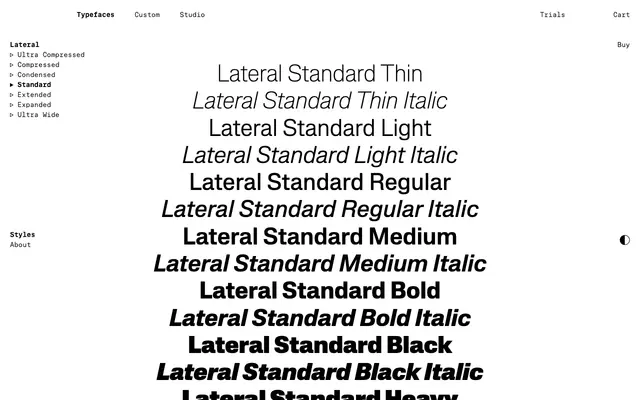
Lateral Standard
Lateral Standard specimen from Schick Toikka
The central width of Lateral: a workhorse neo-grotesque in seven weights with italics, where the family's flat curve segments are subtlest.
Lateral Standard is the central width of the seven-width Lateral system. At this point along the width axis the flat segments at curve extremes are short and of little visible consequence, leaving a cleanly proportioned neo-grotesque suitable for all-purpose typesetting. Seven weights from Thin to Black with matching italics handle hierarchy from text to display, and the cut connects to all other widths and to a slant axis through the Lateral variable font.
The central width within the seven-width Lateral system; the flat curve segments are short and of little visible consequence at this width.